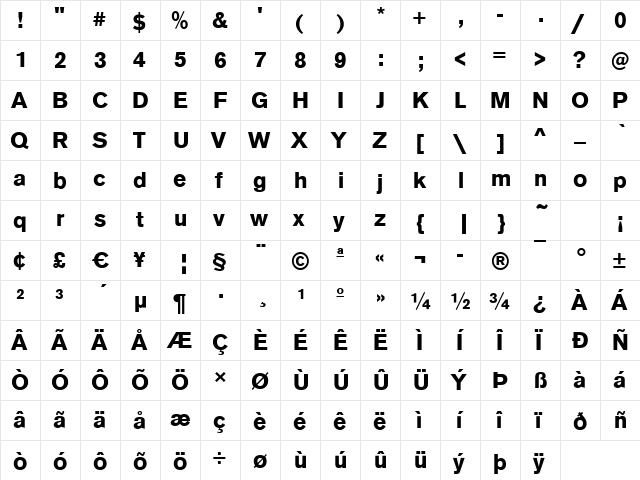
Ancona Bold Font Preview
Ancona Bold
Ancona Bold Font Details
Design Context for Ancona Typeface
Ancona is a composed and adaptable typeface that performs quietly and consistently across a wide range of design contexts. The heavy weight commands attention and anchors typographic hierarchies.